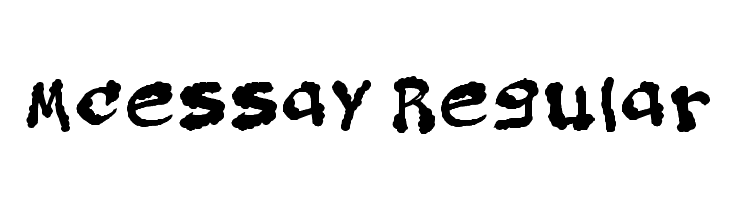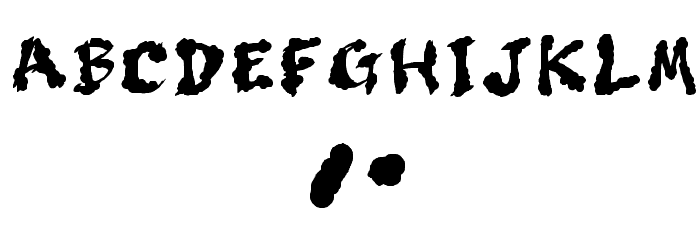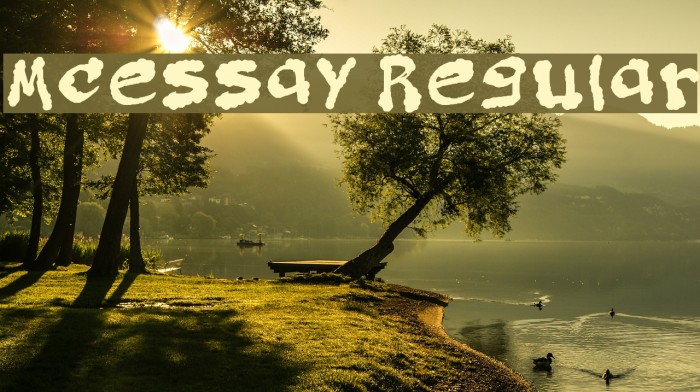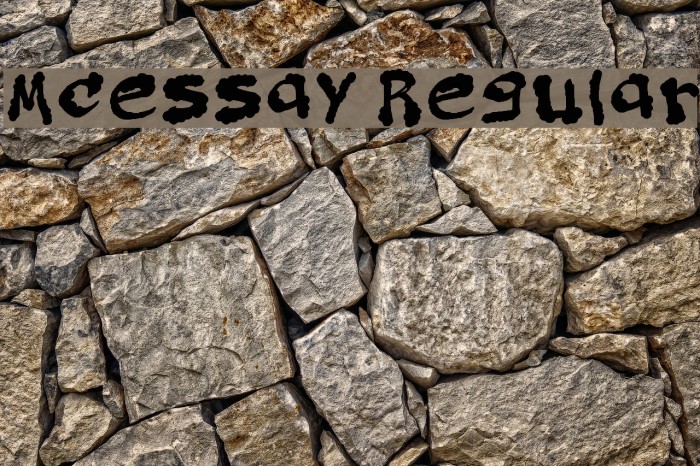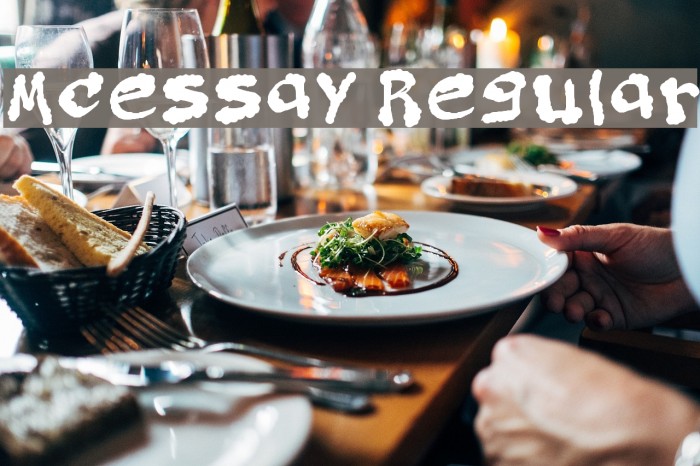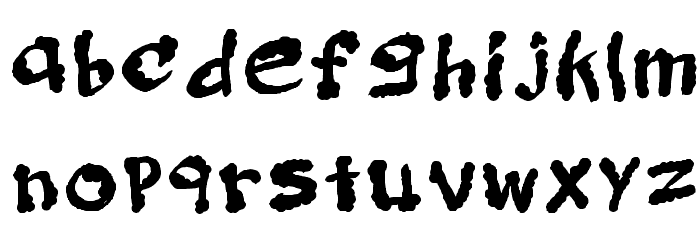
Mcessay Regular Font
Mcessay Regular Description
This font features a bold and expressive style with a hand-painted appearance. The characters are uneven and have a textured, brush-like quality, giving them a dynamic and artistic feel. The uppercase and lowercase letters maintain a consistent style, with irregular edges and varying thicknesses that add to the font's organic look. The numbers and special characters follow the same design principles, ensuring a cohesive appearance across all elements. This font's unique and creative style makes it stand out, perfect for projects that require a touch of individuality and flair.
A bold, hand-painted style font with a textured, artistic appearance from Uncategorized fonts.
- Proposed Projects: Ideal for artistic projects, posters, branding, and any design requiring a bold, creative touch.
- Overall Style: Artistic, Expressive
- Use Case: Headlines, Posters, Branding